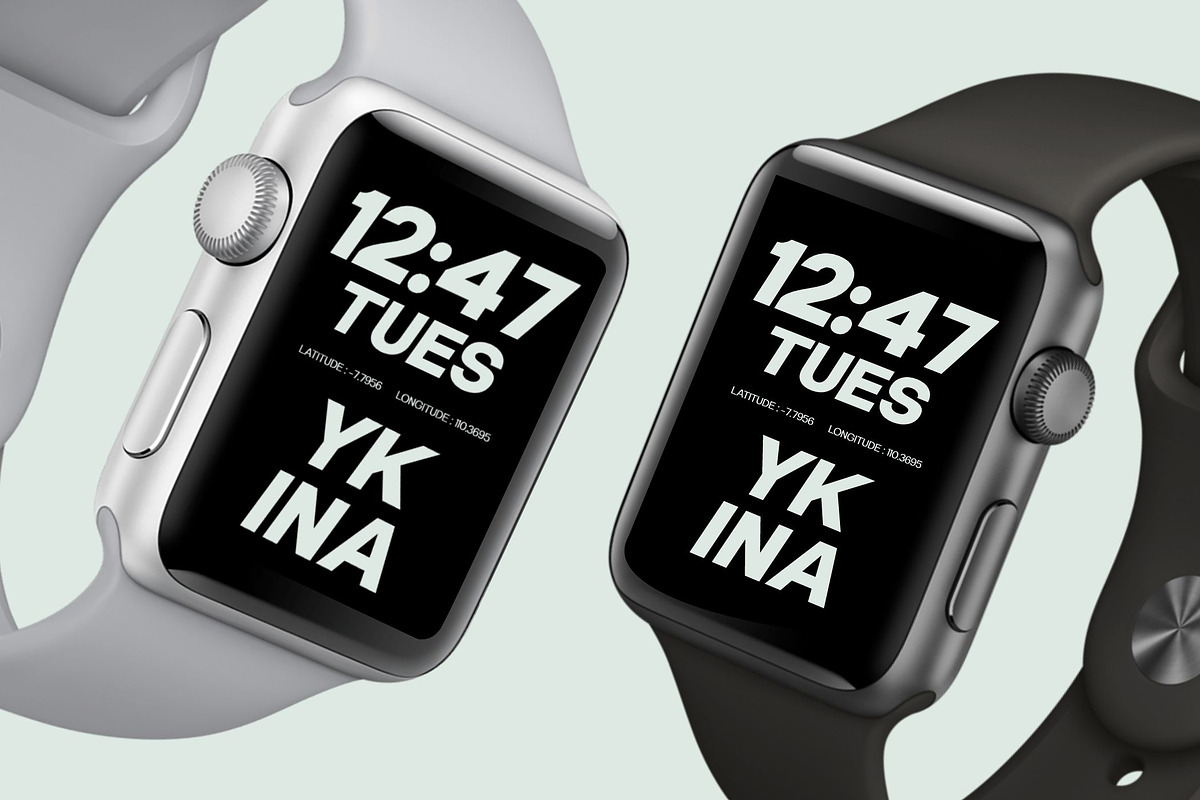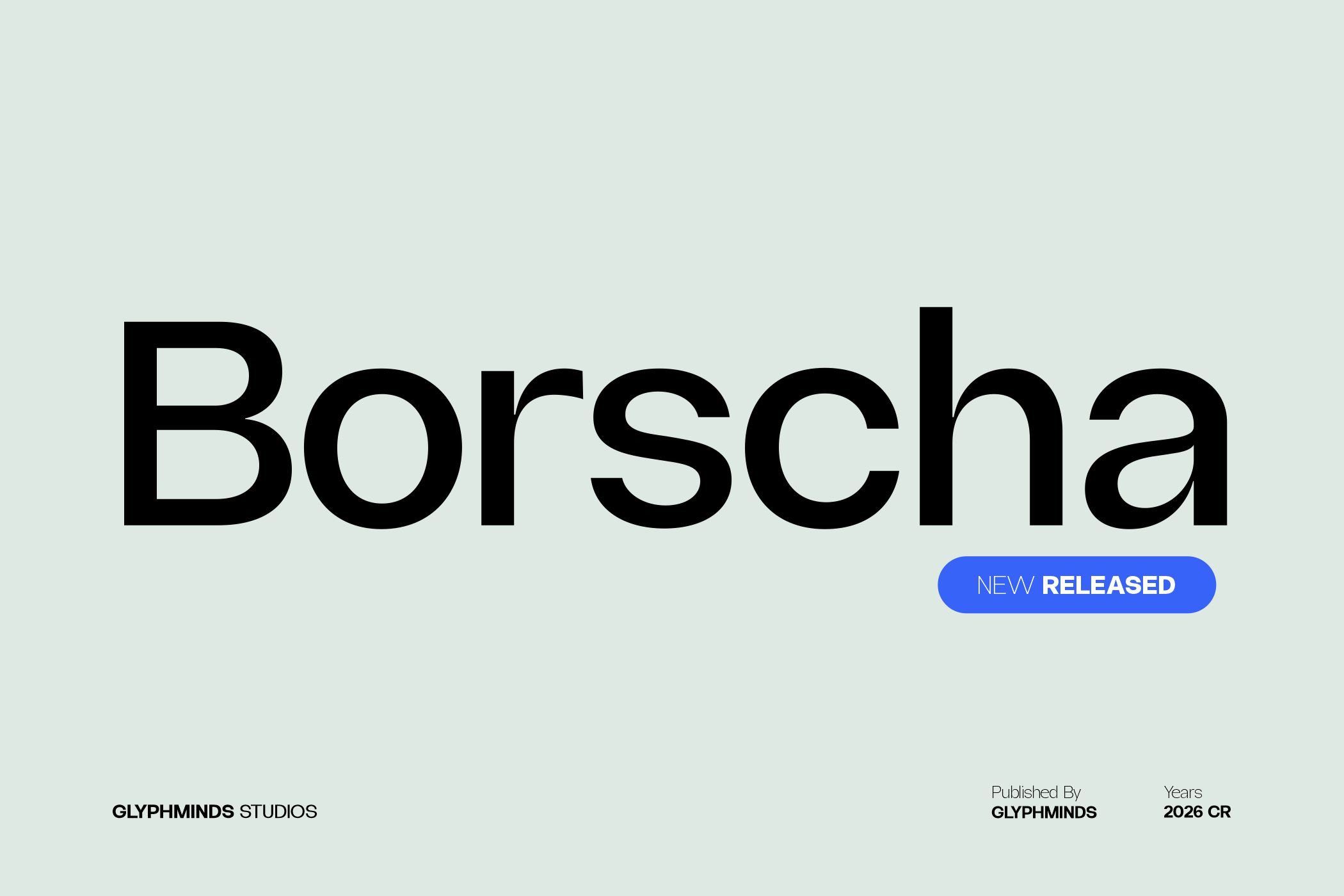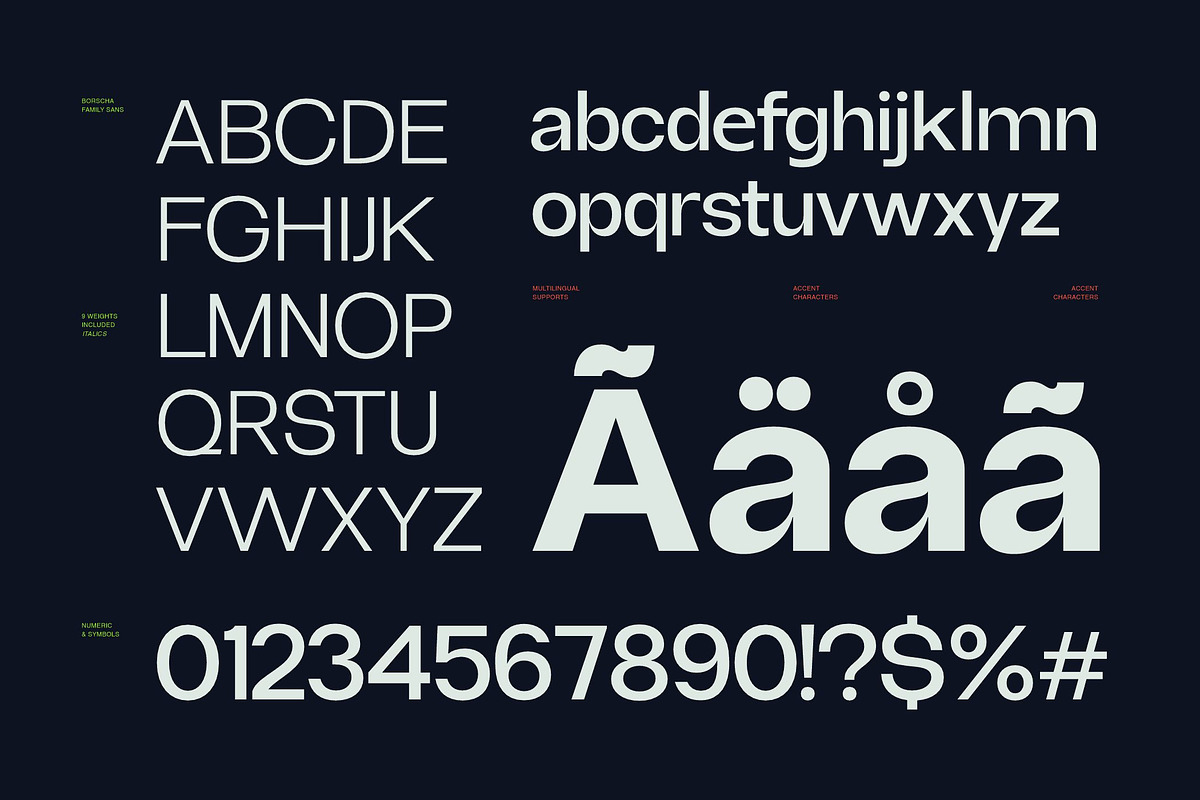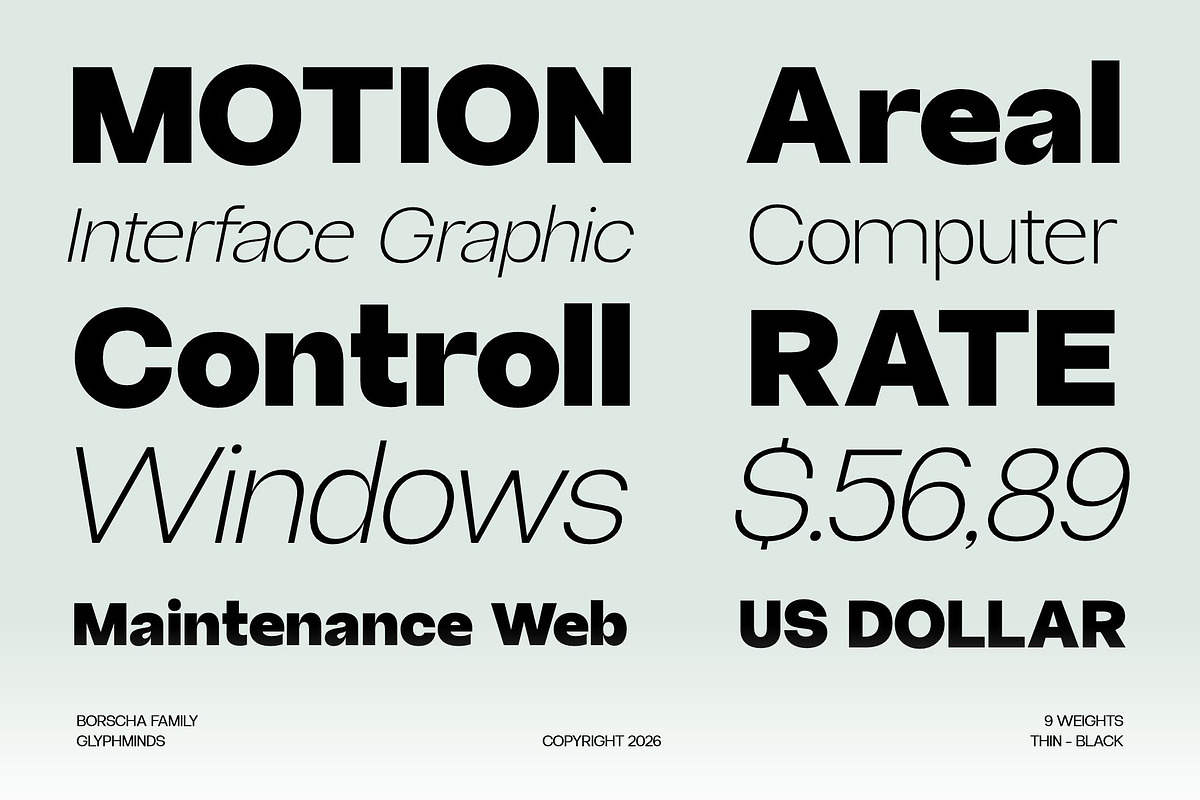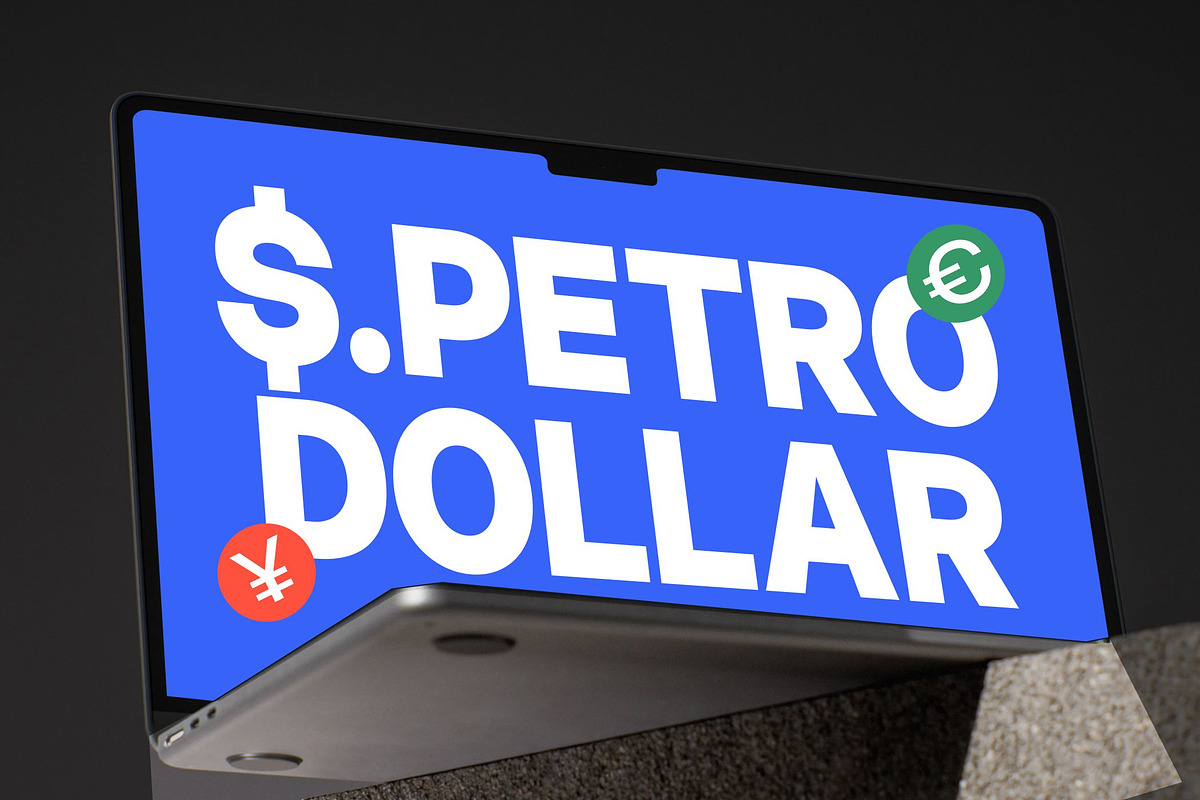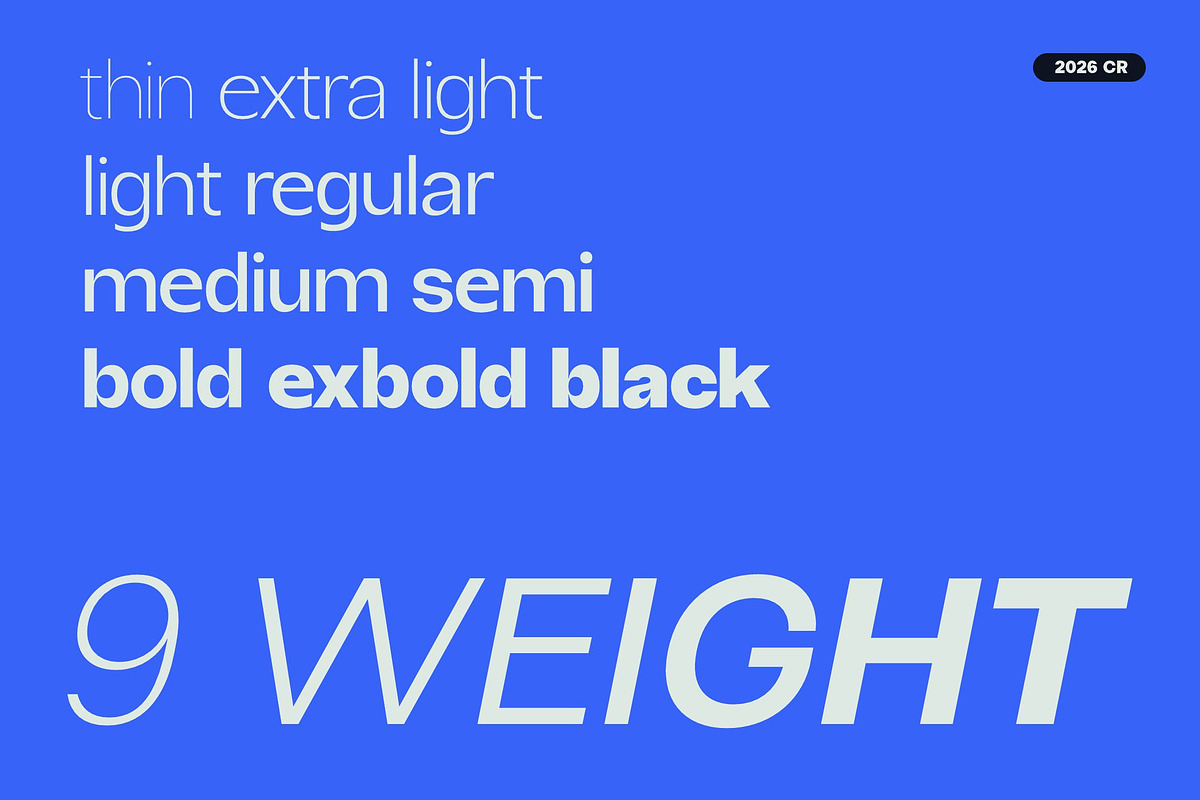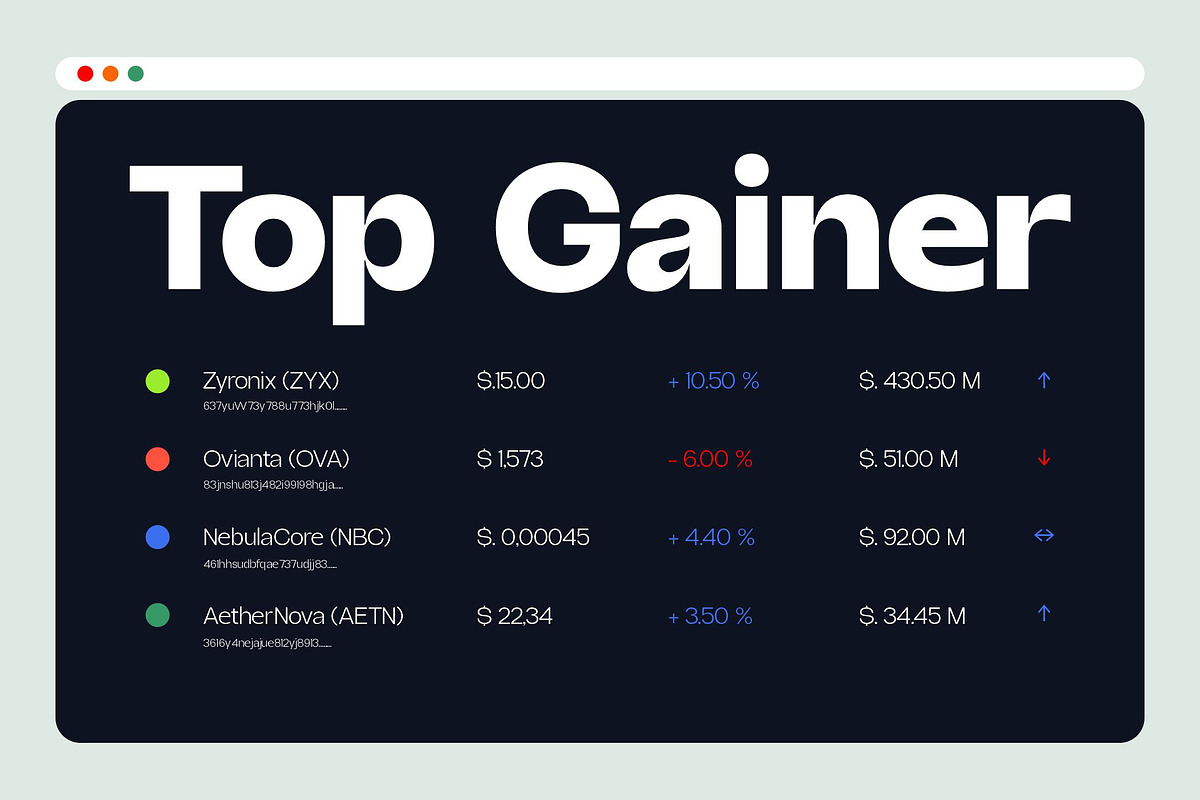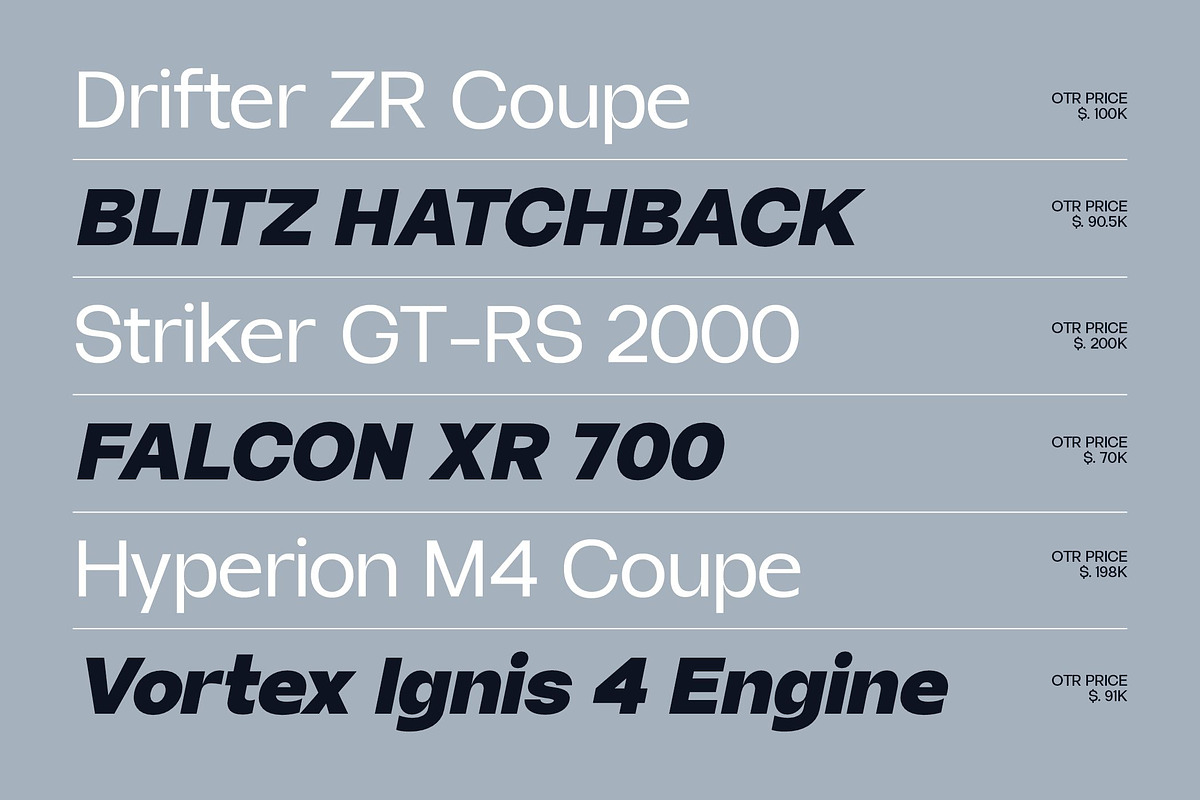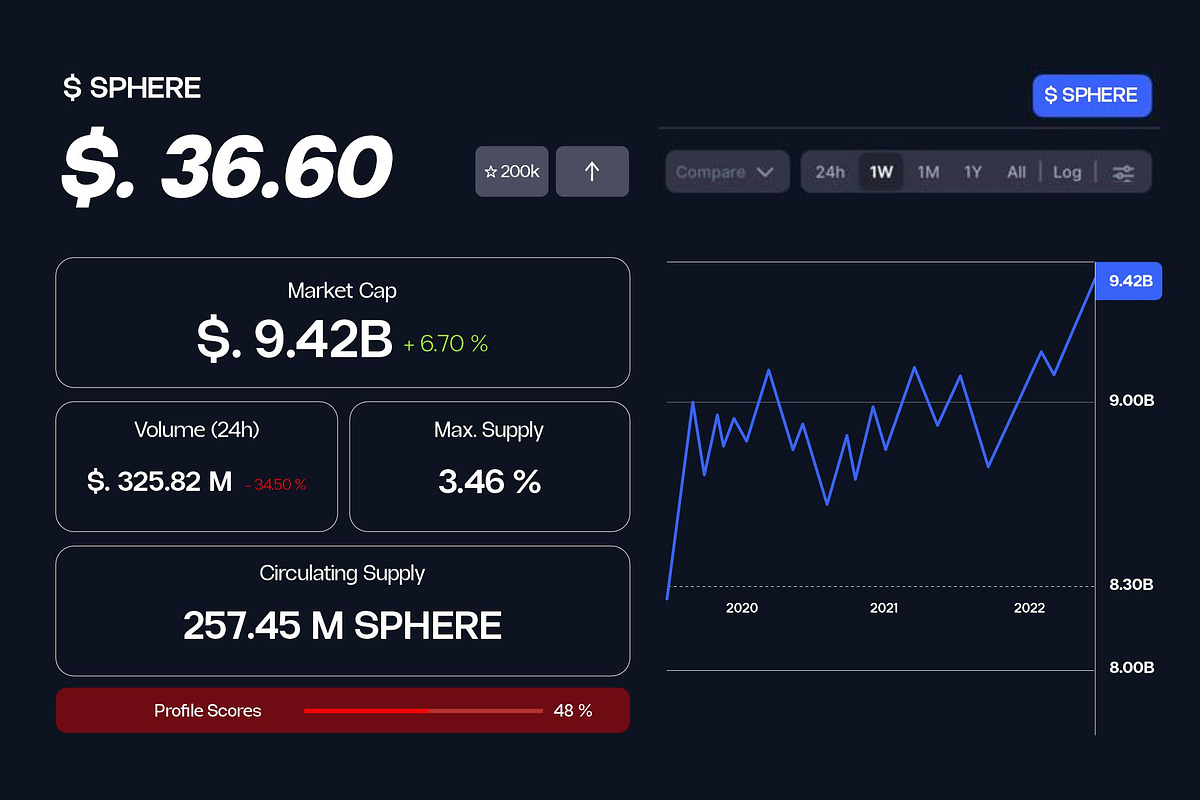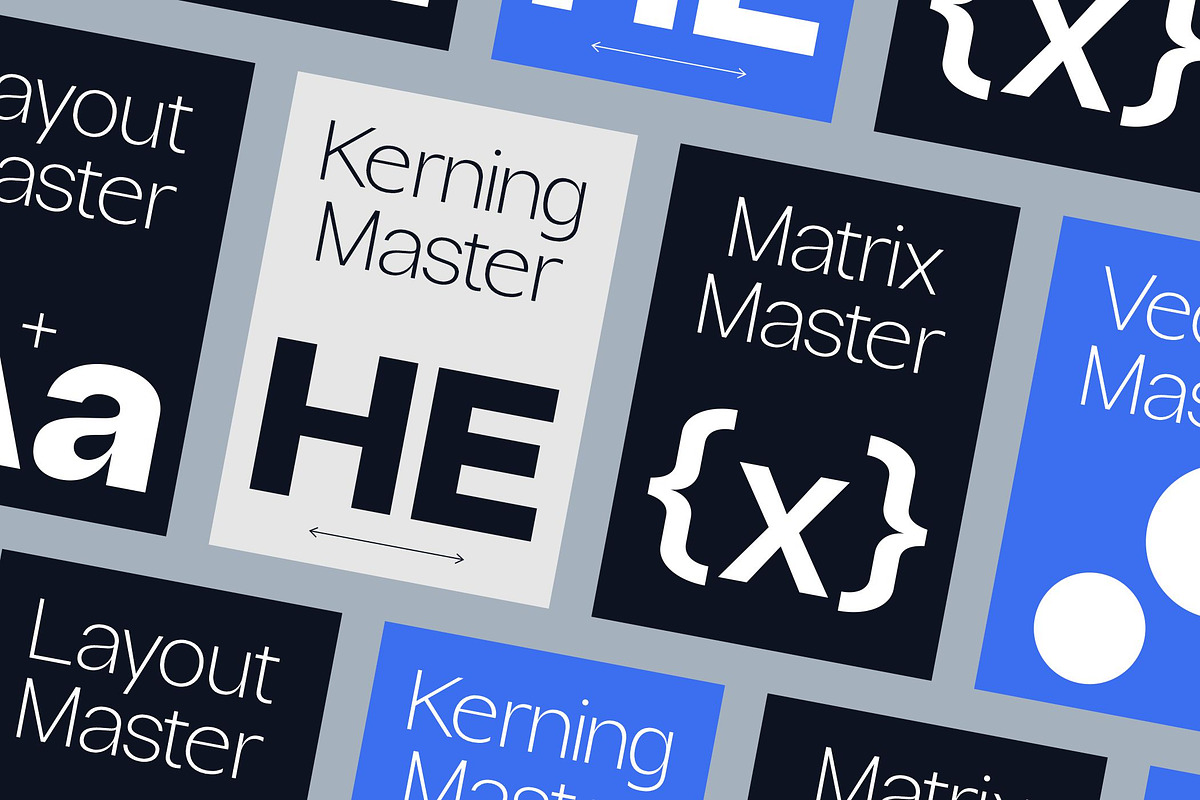
Borscha Typeface
In a world of cluttered design, Borscha offers the ultimate clarity. Designed by Glyphminds Studios, this expansive 18-family sans-serif collection is engineered for versatility. Whether you are crafting a high-tech UI, a luxury fashion lookbook, or a bold corporate identity, Borscha adapts seamlessly.
Borscha is a modern, minimalist sans serif font designed for clean, professional, and high-impact visual communication.
With its smooth curves, balanced proportions, and contemporary geometric feel, Borscha delivers a premium look perfect for branding, logos, websites, UI/UX design, editorial layouts, and more.
This font family includes 18 styles with italic versions, giving you maximum flexibility to create elegant typography systems—from bold headlines to refined body text.
Whether you're building a modern brand identity or designing a sleek interface, Borscha helps your work stand out with clarity and sophistication.
- 18 font styles (including italic)
- Clean & modern geometric design
- Perfect for branding, logos, UI, and web
- Highly readable & versatile
- Professional and minimal aesthetic
Upgrade your design with a font that feels timeless, sharp, and premium.